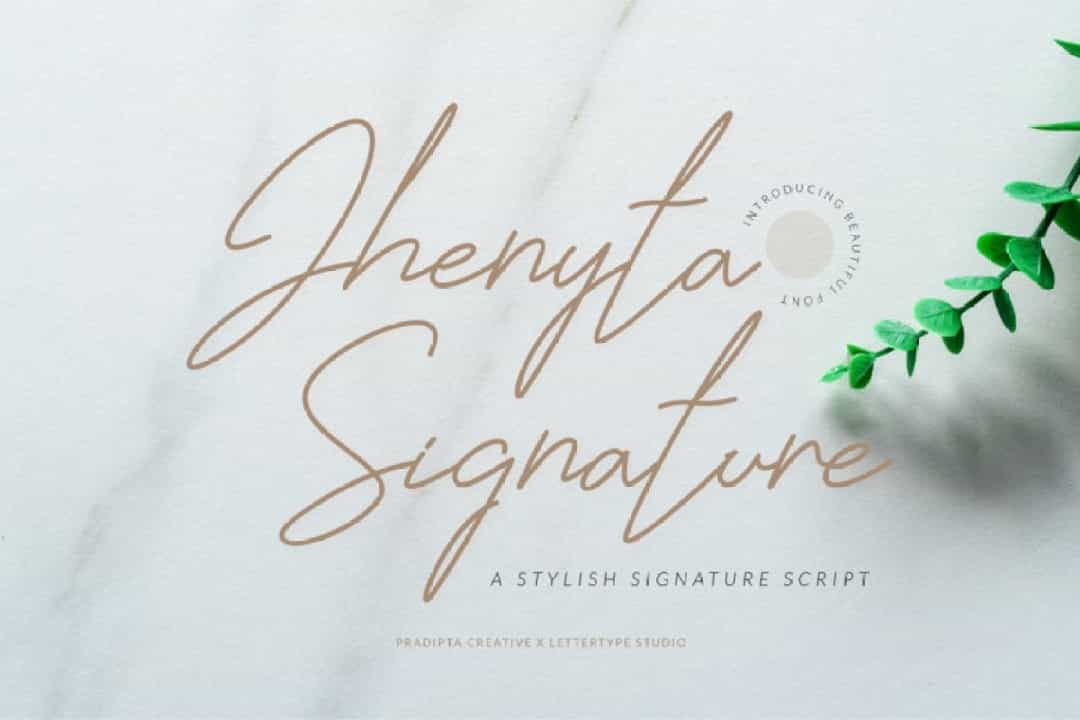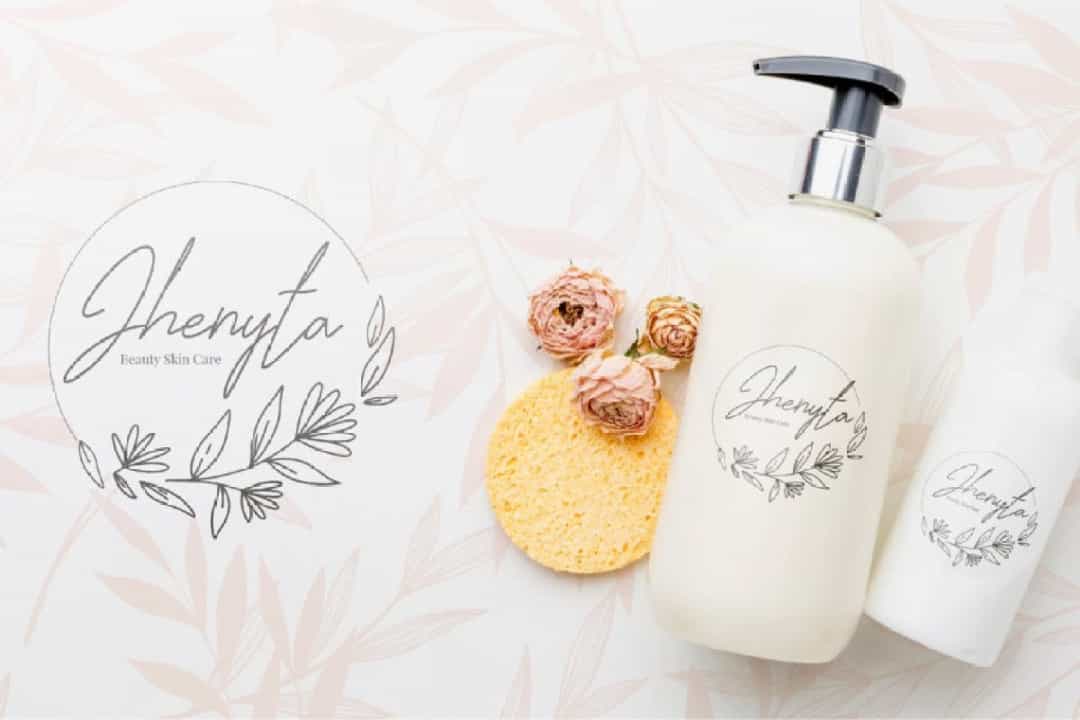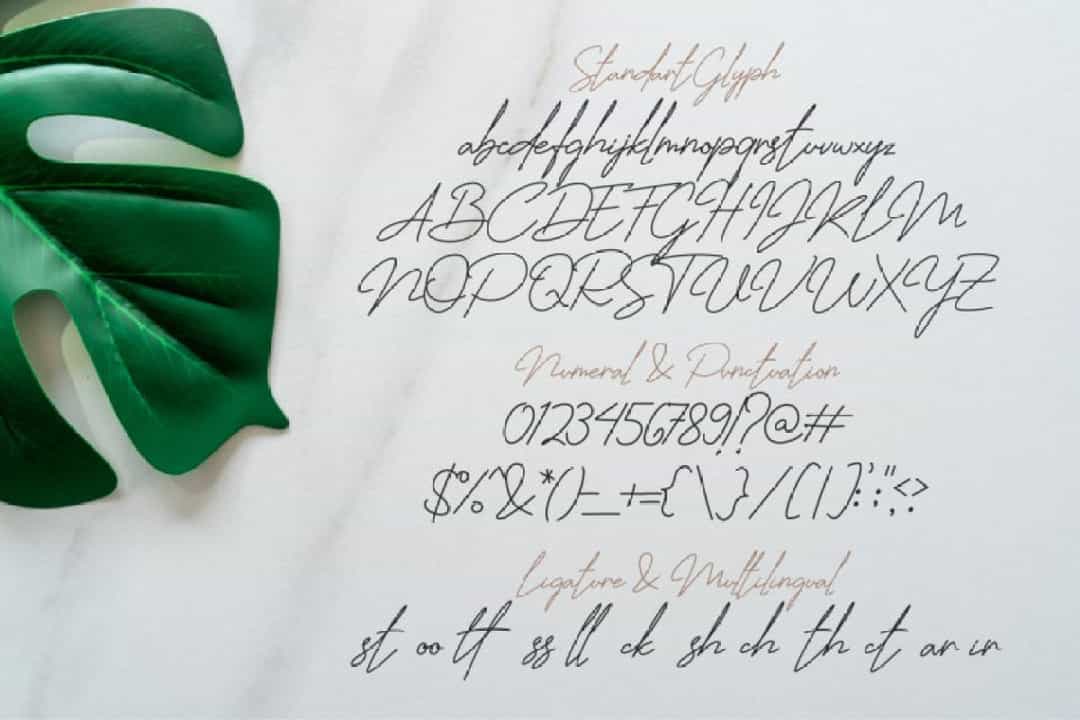
Jhenyta font designed with a elegant signature style script with clean cuts and has a fluidity of the ink on paper. It is suitable for watermarks, photography social media posts advertising, logos, branding, invitations, designs, labels stationery, wedding designs packaging of products and special occasions, or any other event that needs handwriting.